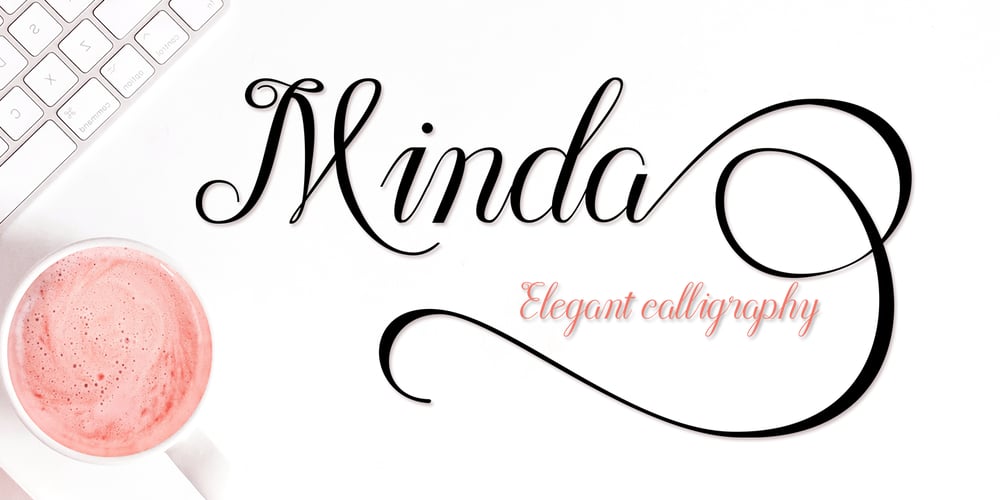
Minda Script Font Family was designed by Nanda Type and published by Nandatype Studio. Minda Script contains 1 styles and family package options. Minda is a classy and elegant modern calligraphy font. It can be used for various purposes, such as logos, wedding invitations, t-shirts, letterhead, signage, posters and more. It includes OpenType features including alternates, ligatures and multi-language support.